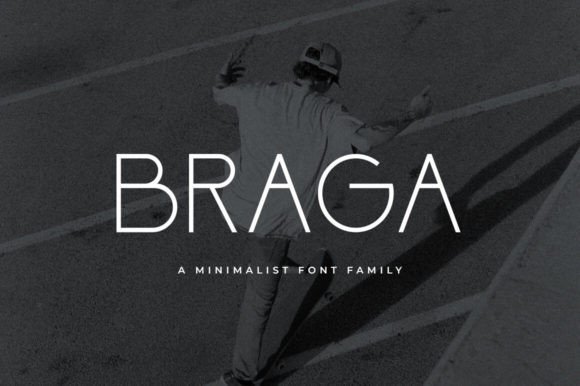
Have you ever been scrolling through your social media feed, and suddenly, a beautifully designed post catches your eye? You can’t help but stop and admire the typography, the colors, and the overall aesthetic. This is exactly what happens when designers use the right font, and today, we’re excited to introduce you to one of our favorites: the Braga Font.
This elegant and modern sans serif font is perfect for creating stunning wedding invitations, beautiful stationery art, and eye-catching social media posts. Its versatility makes it a valuable asset for designers looking to elevate their designs and stand out from the crowd. Whether you’re a seasoned pro or just starting out, the Braga Font is a great addition to your design toolbox.
Braga Font Key Features
- Font Family: Braga Font is a sans-serif font family designed for digital use.
- Size: The font family includes 5 weights: Thin, Light, Regular, Medium, and Bold.
- Unique Characteristics: Braga Font features a clean and modern design, with a focus on legibility and readability in digital environments.
- Language Support: Braga Font supports a wide range of languages, including Latin, Cyrillic, and Greek scripts.
Braga Font Review
At first glance, Braga Font appears to be a stylish and modern sans-serif font, perfect for creating eye-catching digital experiences. ✨ The font’s sleek lines and clean typography make it an excellent choice for headings, titles, and body text. ✨ The font also comes in various weights and styles, which allows for a high degree of customization and flexibility.
However, there are some limitations to consider. ⚠️ One of the main issues is the font’s legibility at smaller font sizes. ⚠️ While it looks great at larger sizes, it can become difficult to read at sizes below 14px. ⚠️ Additionally, the font may not be suitable for long blocks of text, as it can become tiring to read.
Here are some specific points to consider:
- Legibility at small font sizes (⚠️)
- Suitability for long blocks of text (⚠️)
- Lack of support for non-Latin languages (⚠️)
- Font file size (although not excessive, it’s worth considering for web development)
Overall, Braga Font is a solid choice for digital designers looking to add a touch of modernity to their projects. While it has its limitations, it’s a great option for headings, titles, and short blocks of text. With careful consideration and use, Braga Font can be a valuable addition to any design toolkit.
Braga Font Practical Application Guide
To get the most out of the Braga font, use it for:
- Body text for articles and blog posts
Remember to adjust the font size and color to ensure readability and visual appeal.
Alternatives to Braga Font
Montserrat is a sans-serif font designed by Julieta Ulanovsky. It is a versatile and modern font suitable for body text, titles, and headings. Montserrat is ideal for digital interfaces, apps, and websites. Compared to Braga Font, Montserrat has a more geometric and industrial feel, making it perfect for contemporary designs.
Lato is a sans-serif font designed by Łukasz Dziedzic. It is a clean and elegant font suitable for body text, titles, and headings. Lato is ideal for digital interfaces, apps, and websites. Compared to Braga Font, Lato has a more rounded and friendly feel, making it perfect for designs that require a touch of warmth.
Open Sans is a sans-serif font designed by Steve Matteson. It is a highly legible font suitable for body text, titles, and headings. Open Sans is ideal for digital interfaces, apps, and websites. Compared to Braga Font, Open Sans has a more neutral and balanced feel, making it perfect for designs that require clarity and simplicity.
Inter is a sans-serif font designed by Office for Creative Research. It is a highly versatile font suitable for body text, titles, and headings. Inter is ideal for digital interfaces, apps, and websites. Compared to Braga Font, Inter has a more modern and sophisticated feel, making it perfect for contemporary designs that require a touch of elegance.